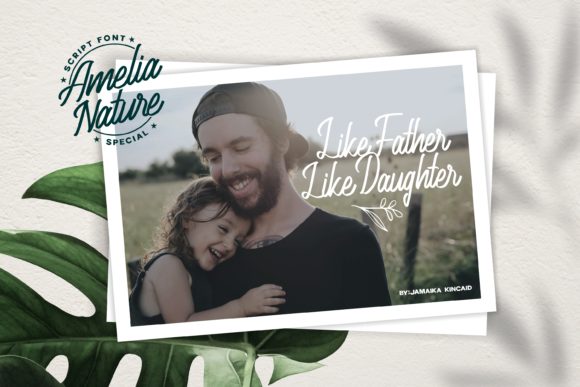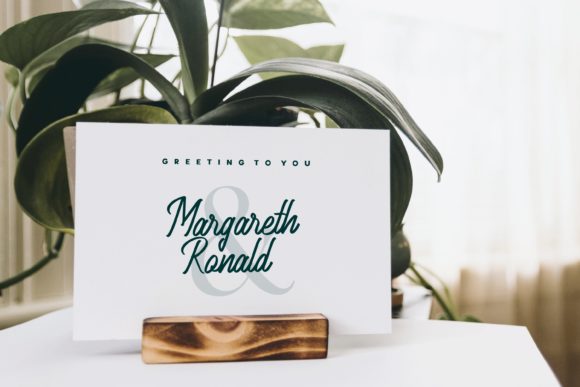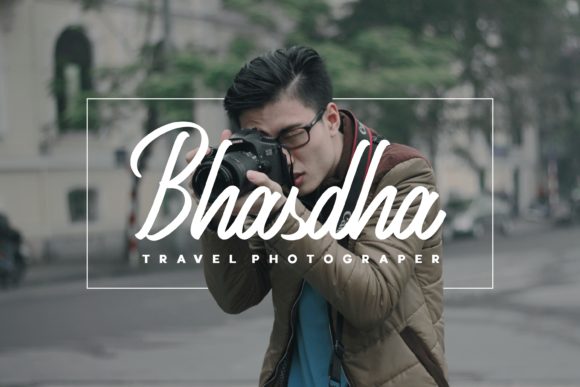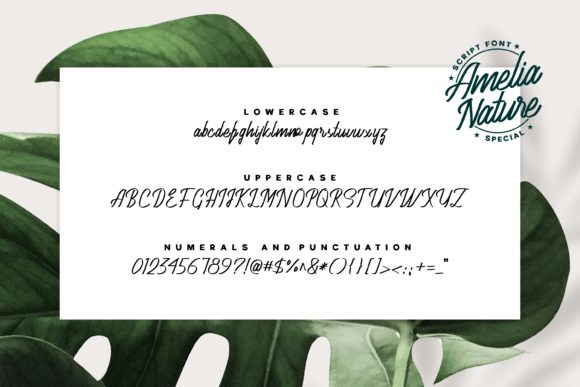
Amelia Nature Font
About Amelia Nature Font
Amelia Nature is a stunning script font that works well for Logos, Branding, Packaging, Posters, Invitations, Instastory, Social or any Advertising projects!